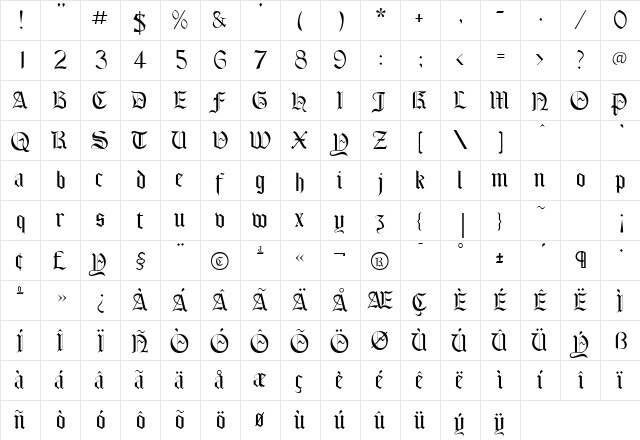
Laudens Regular
Design Context for Laudens Typeface
Laudens is a composed and adaptable typeface that performs quietly and consistently across a wide range of design contexts.